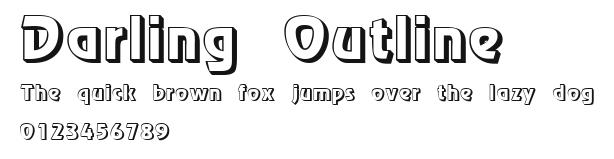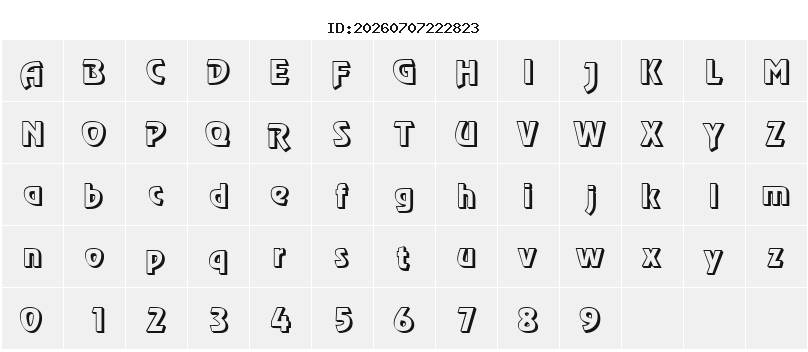
About Darling Outline.ttf
Darling Outline.ttf is a modern, elegant sans-serif font designed for ultimate readability and visual harmony. Perfect for branding, headlines, web design, and print materials.